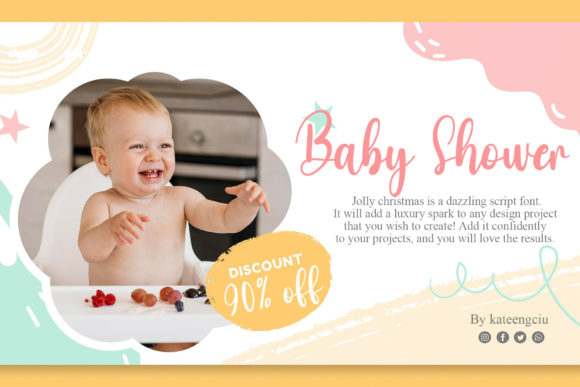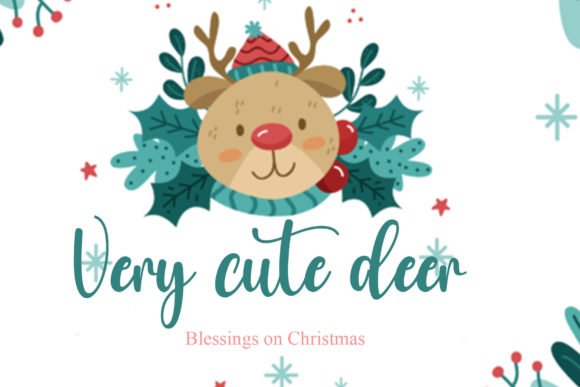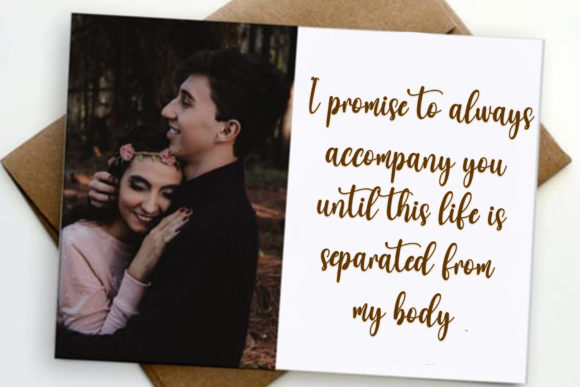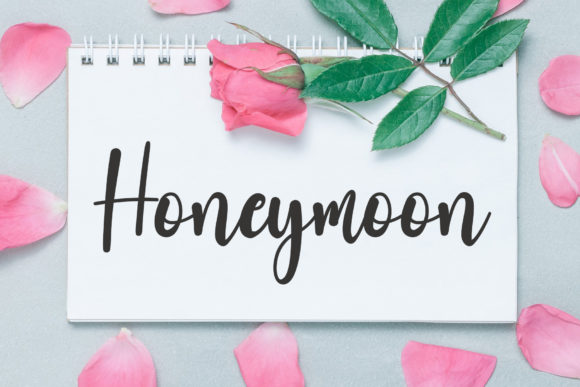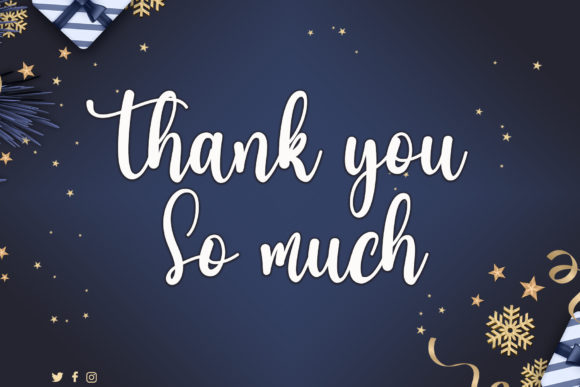
Vintage Font
About Vintage Font
“Vintage” is a superb handwritten font designed to make your work stand out with its elegant and curvy lines. This versatile font is well-suited for a range of applications, including product packaging, branding projects, magazine covers, social media graphics, wedding materials, or for expressing words creatively above different backgrounds.
The elegance of “Vintage” is showcased through its handwritten style, imparting a sense of sophistication and charm to your designs. The curvy lines contribute to a dynamic and graceful appearance, making it suitable for projects that require a blend of classic and contemporary aesthetics.
Envision “Vintage” enhancing product packaging, where its superb handwritten script elevates the overall visual appeal. The font’s elegant and curvy lines can transform ordinary packaging into a stylish and eye-catching representation of your brand, especially if you are aiming for a vintage or retro-inspired look.
In branding projects, “Vintage” becomes a distinctive choice, infusing a unique personality into your visual identity. Its versatility allows it to seamlessly adapt to various design elements, ensuring a cohesive and memorable brand presentation with a touch of classic elegance.
On social media graphics or magazine covers, “Vintage” brings a creative and timeless touch. The curvy lines create a sense of flow, making it visually engaging and suitable for diverse content, whether it be related to lifestyle, fashion, or other thematic approaches.
Whether you’re working on a wedding invitation or endeavoring to express words creatively above different backgrounds, “Vintage” offers a superb solution with its elegant and curvy lines. Embrace the charm of this handwritten font to elevate your designs and make a lasting impression on your audience.